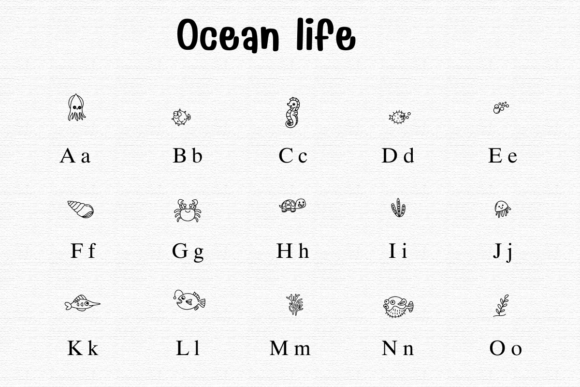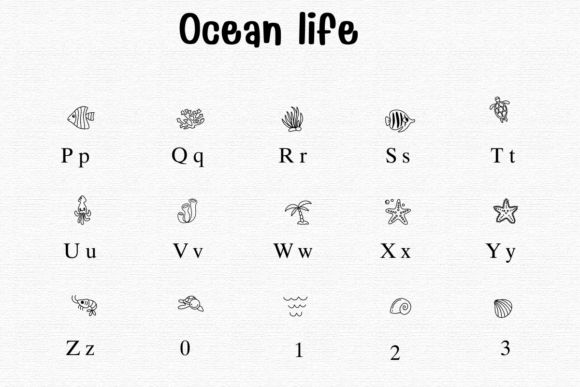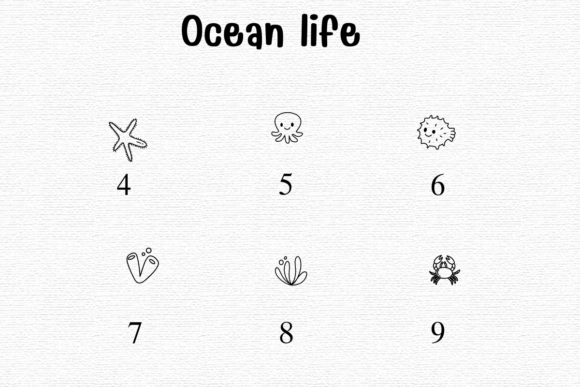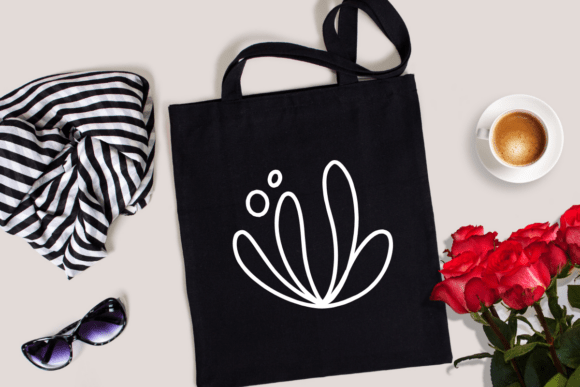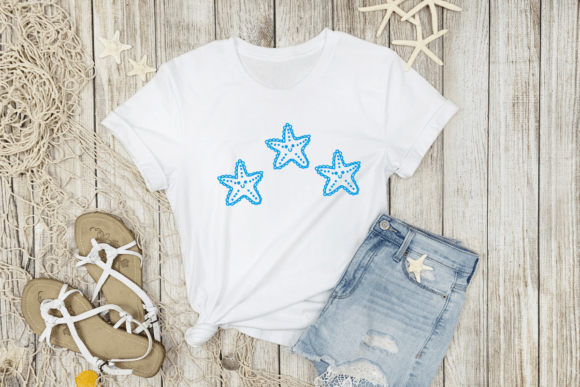
Introduction to Ocean Life Font
Remember that moment when you’re working on a creative project and you just can’t seem to find the perfect design resource to bring your vision to life? That’s where the Ocean Life Font comes in – a high-quality, free download that’s about to become your new best friend.
Whether you’re a seasoned designer or just starting out, having access to a reliable and versatile font like the Ocean Life Font is invaluable. With its wide range of characters and styles, from coloring outlines to dingbats and doodles, you’ll be able to add a touch of whimsy and personality to any project. And with its transparent background, you can easily combine it with other design elements to create unique and eye-catching compositions.
Key Features of Ocean Life Font
- High-quality design resource for creative projects, perfect for illustrations, graphics, and more.
- Unique and whimsical design inspired by the beauty of ocean life, adding a touch of personality to any creative project.
Honest Review: Ocean Life Font
As a designer, I’m always on the lookout for high-quality design resources that can elevate my creative projects. The Ocean Life Font caught my attention, and I decided to give it a try. Here’s my honest review.
What works well: ✨ The Ocean Life Font has a beautiful, playful design that’s perfect for any ocean-themed project. The font is highly customizable, and the transparent background makes it easy to layer with other design elements. I also appreciate the free download option, which is always a bonus for designers on a budget.
- High-quality design with a unique, ocean-inspired style
- Customizable and easy to use
Limitations: ⚠️ While the Ocean Life Font is a great addition to any design project, it may not be suitable for all types of designs. The font is quite bold and playful, so it may not be the best choice for more serious or formal projects.
Overall, I’m impressed with the Ocean Life Font. It’s a great resource for designers who want to add a touch of whimsy and fun to their creative projects. With its high-quality design and customizable options, it’s definitely worth checking out.
Tips for Getting the Most Out of Ocean Life Font
Use the Ocean Life Font to add a touch of whimsy and playfulness to your design project. Experiment with different font sizes, colors, and styles to create a unique look. Consider pairing the font with other high-quality design elements to create a cohesive and visually appealing design.
The Ocean Life Font is perfect for creative projects such as greeting cards, party invitations, and children’s book illustrations. It’s also great for designing websites, social media graphics, and advertising materials. With its high-quality design and transparent background, the Ocean Life Font is a valuable resource for any designer or artist.